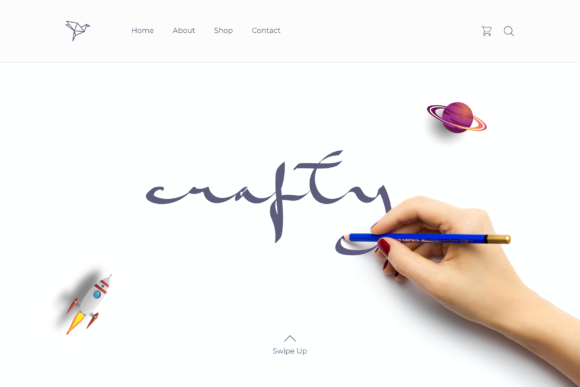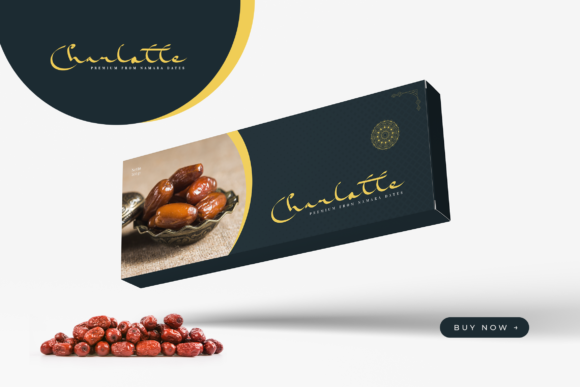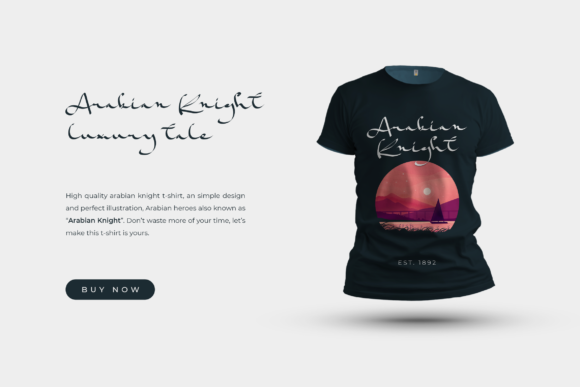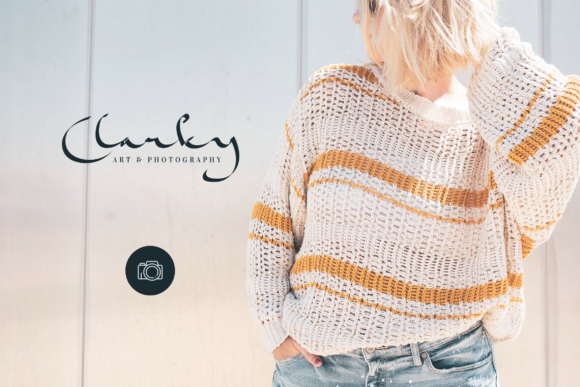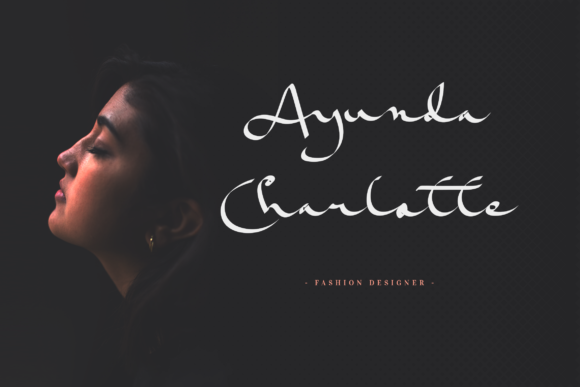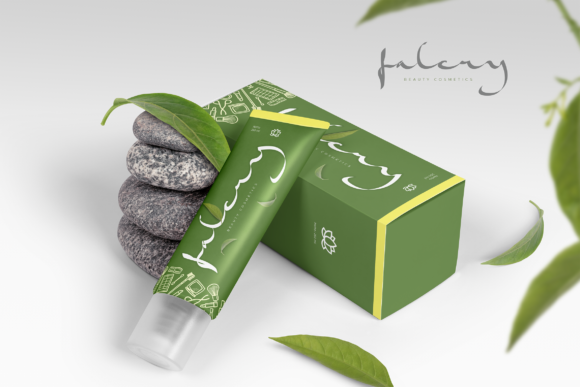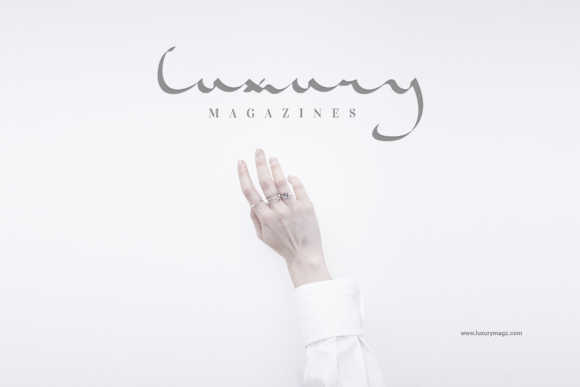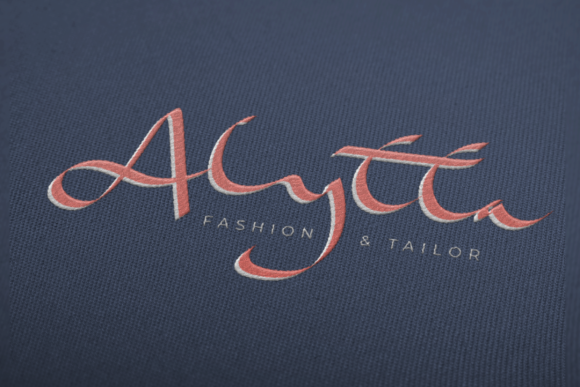
Skecth Crafty Font
About Skecth Crafty Font
Skecth Crafty embodies fun, quirkiness and authenticity. This enchanting handwritten font will turn any creative idea into a true standout.